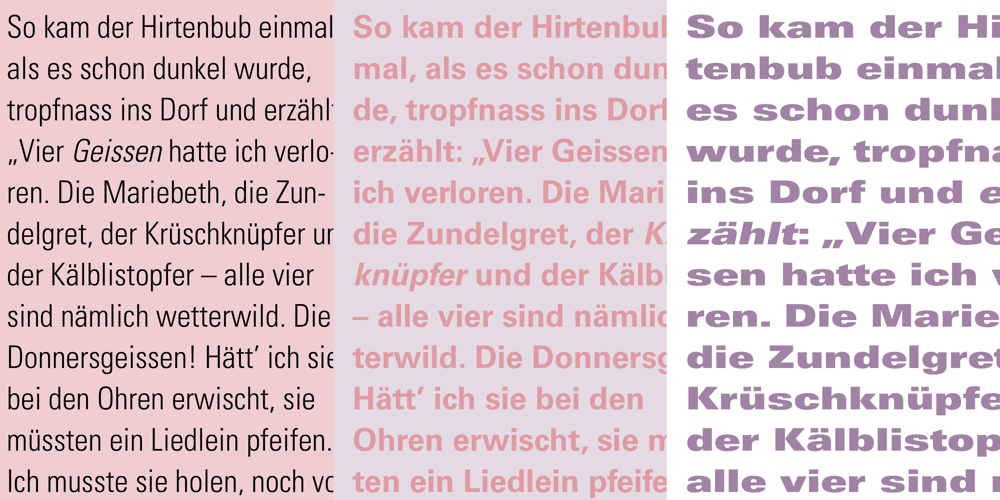
Univers Cyrillic Font Family was designed by Adrian Frutiger and published by Linotype. Univers Cyrillic contains 19 styles and family package options. The font family Univers is one of the greatest typographic achievements of the second half of the 20th century. The family has the advantage of having a variety of weights and styles, which, even when combined, give an impression of steadiness and homogeneity. The clear, objective forms of Univers make this a legible font suitable for almost any typographic need. In 1954 the French type foundry Deberny & Peignot wanted to add a linear sans serif type in several weights to the range of the Lumitype fonts. Adrian Frutiger, the foundry’s art director, suggested refraining from adapting an existing alphabet. He wanted to instead make a new font that would, above all, be suitable for the typesetting of longer texts — quite an exciting challenge for a sans-serif font at that time. Starting with his old sketches from his student days at the School for the Applied Arts in Zurich, he created the Univers type family. In 1957, the family was released by Deberny & Peignot, and afterwards, it was produced by Linotype. The Deberny & Peignot type library was acquired in 1972 by Haas, and the Haas’sche Schriftgiesserei (Haas Type Foundry) was folded into the D. Stempel AG/Linotype collection in 1985/1989.